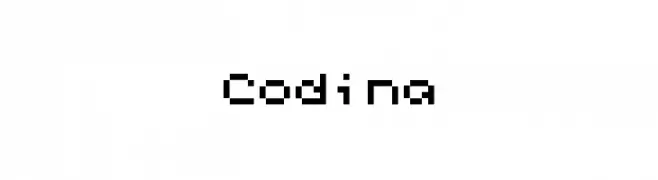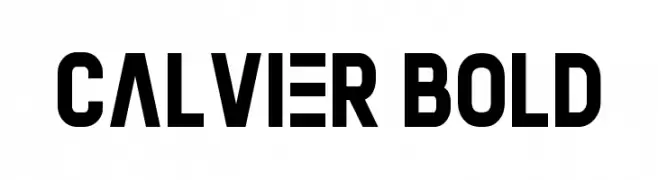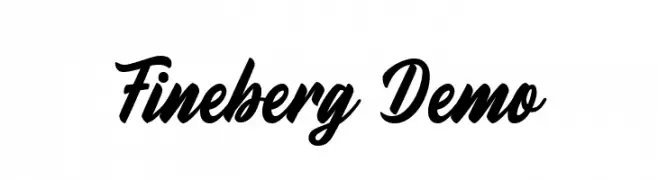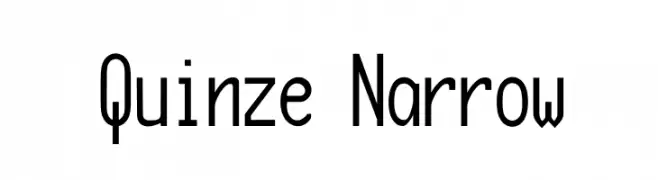
A pixelated, retro-style font with a digital, blocky appearance.
A bold, cursive font with smooth, flowing lines and elegant flourishes.
A playful, bold font with rounded, thick strokes and a whimsical, friendly appearance.
A bold, expressive brush script font with dynamic strokes.
An elegant, flowing script font with ornate uppercase and smooth lowercase letters.
A dynamic, handwritten script font with fluid strokes and lively character.
A narrow, geometric font with clean lines and modern style.
A bold, playful font with rounded edges and a hand-drawn look.
A playful, hand-drawn font with a childlike, whimsical style.